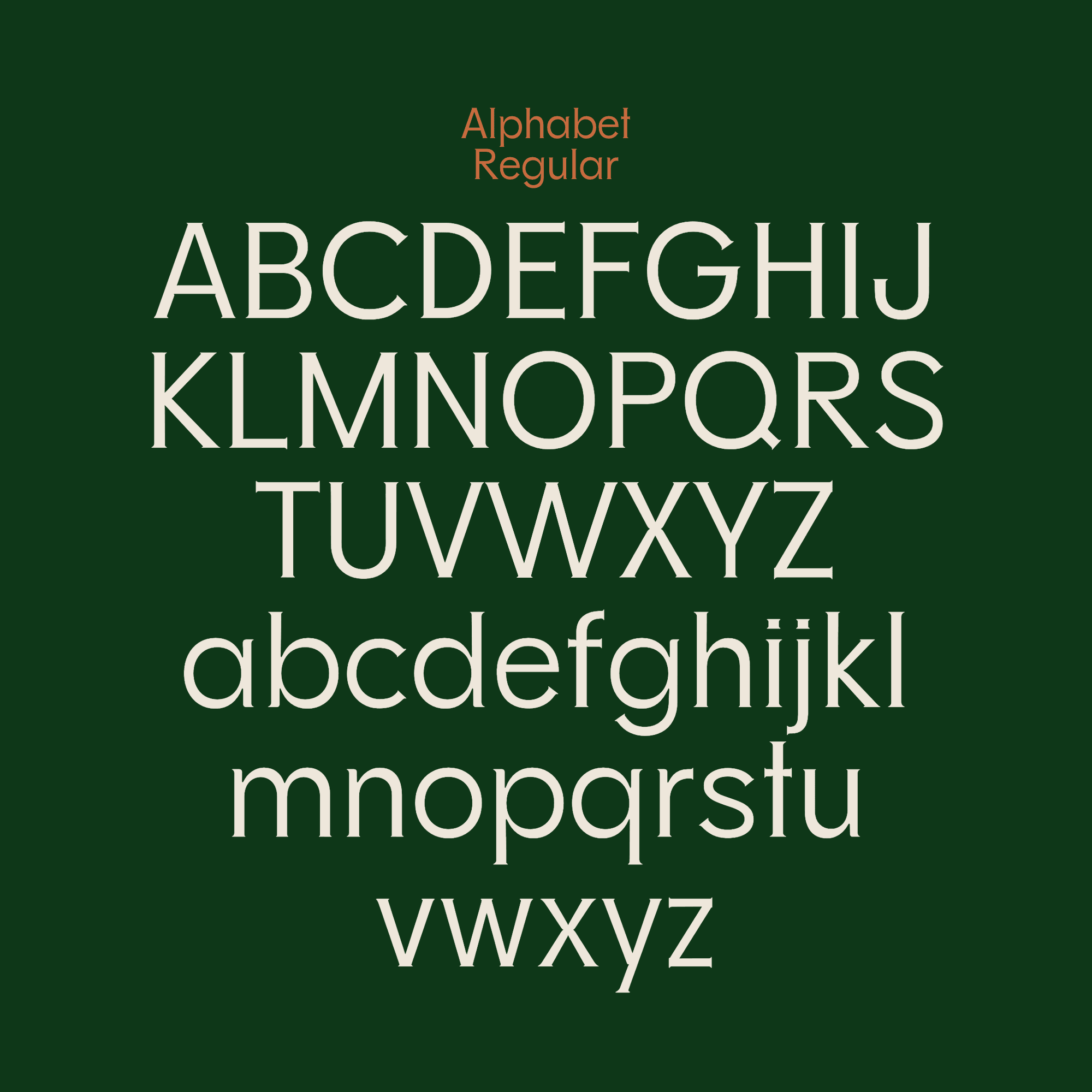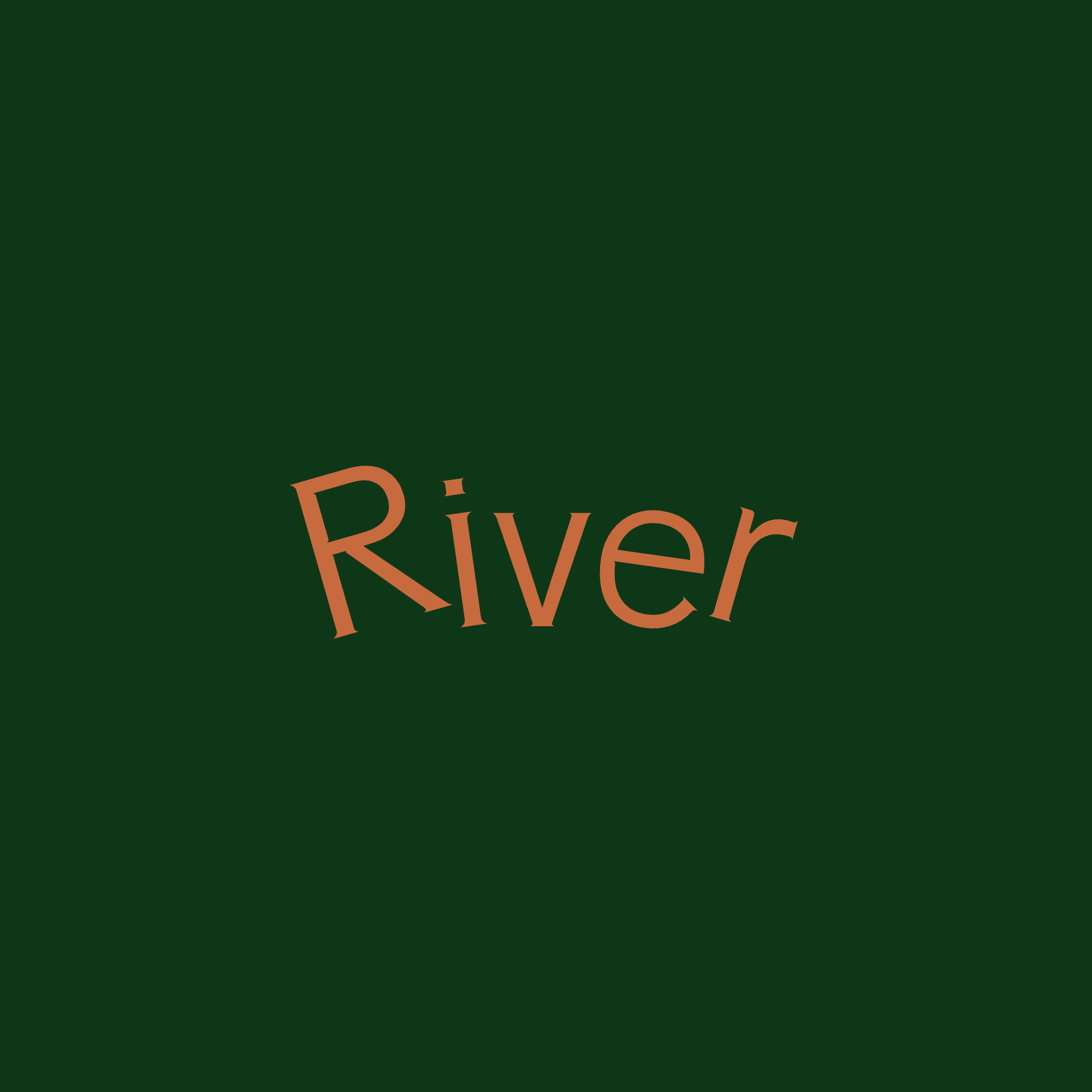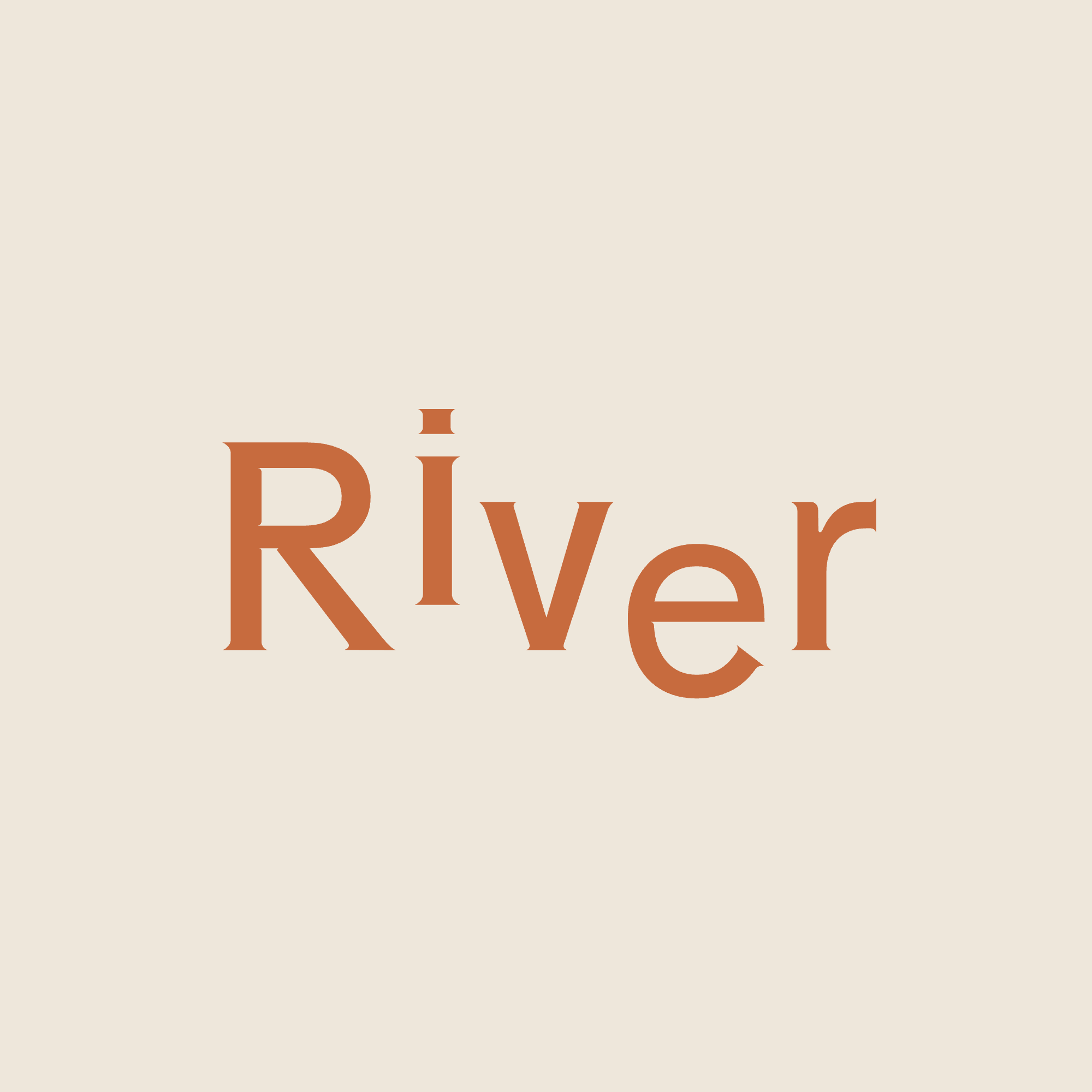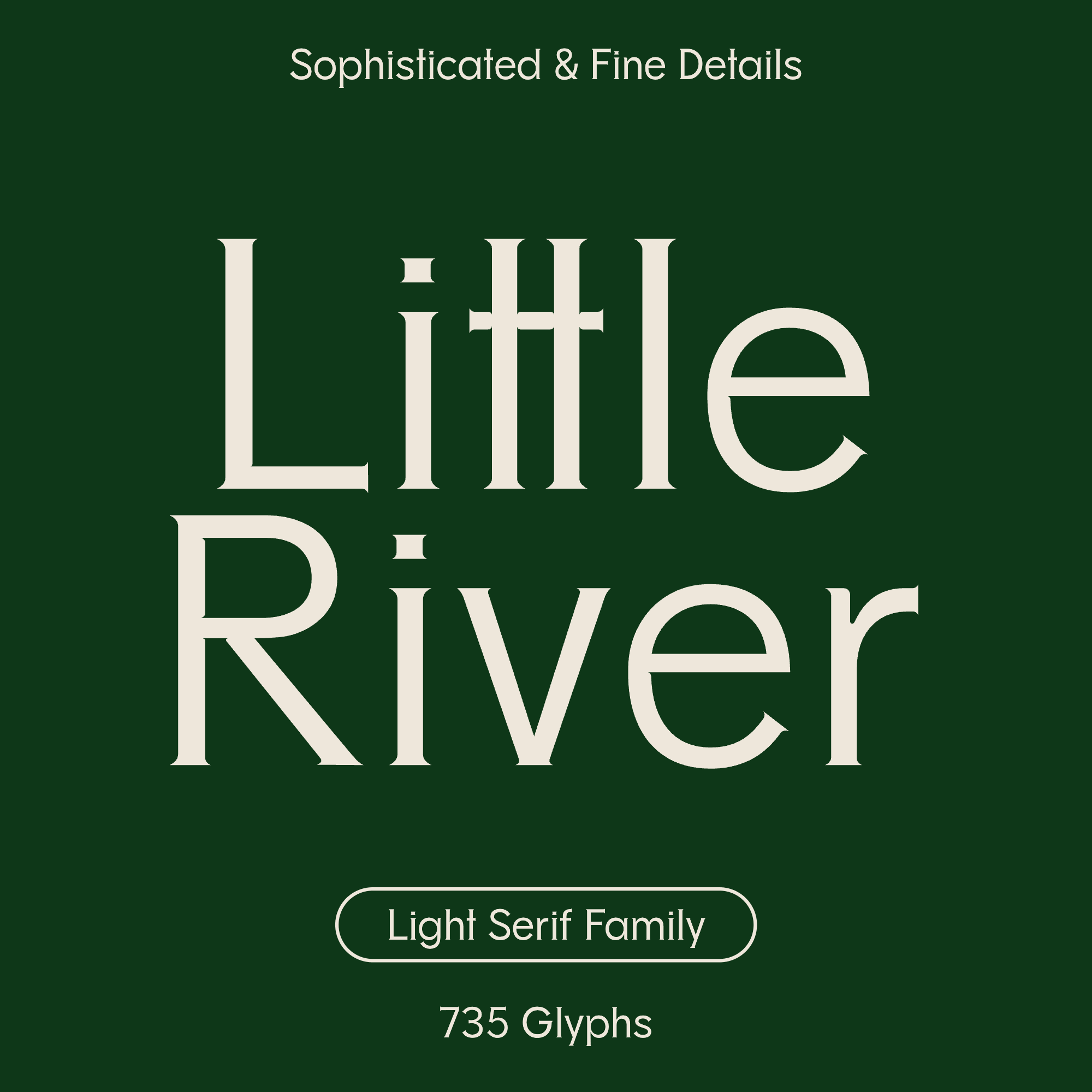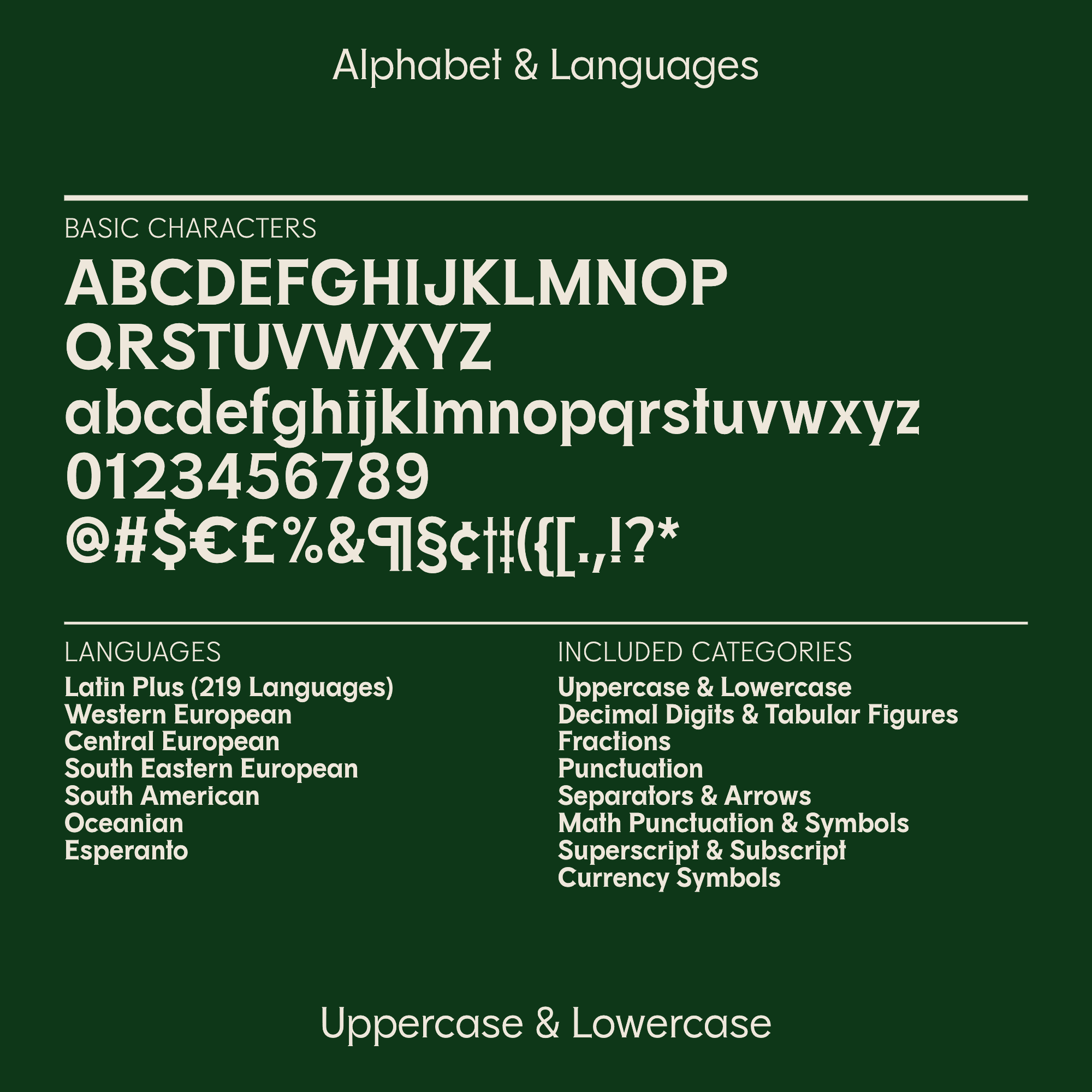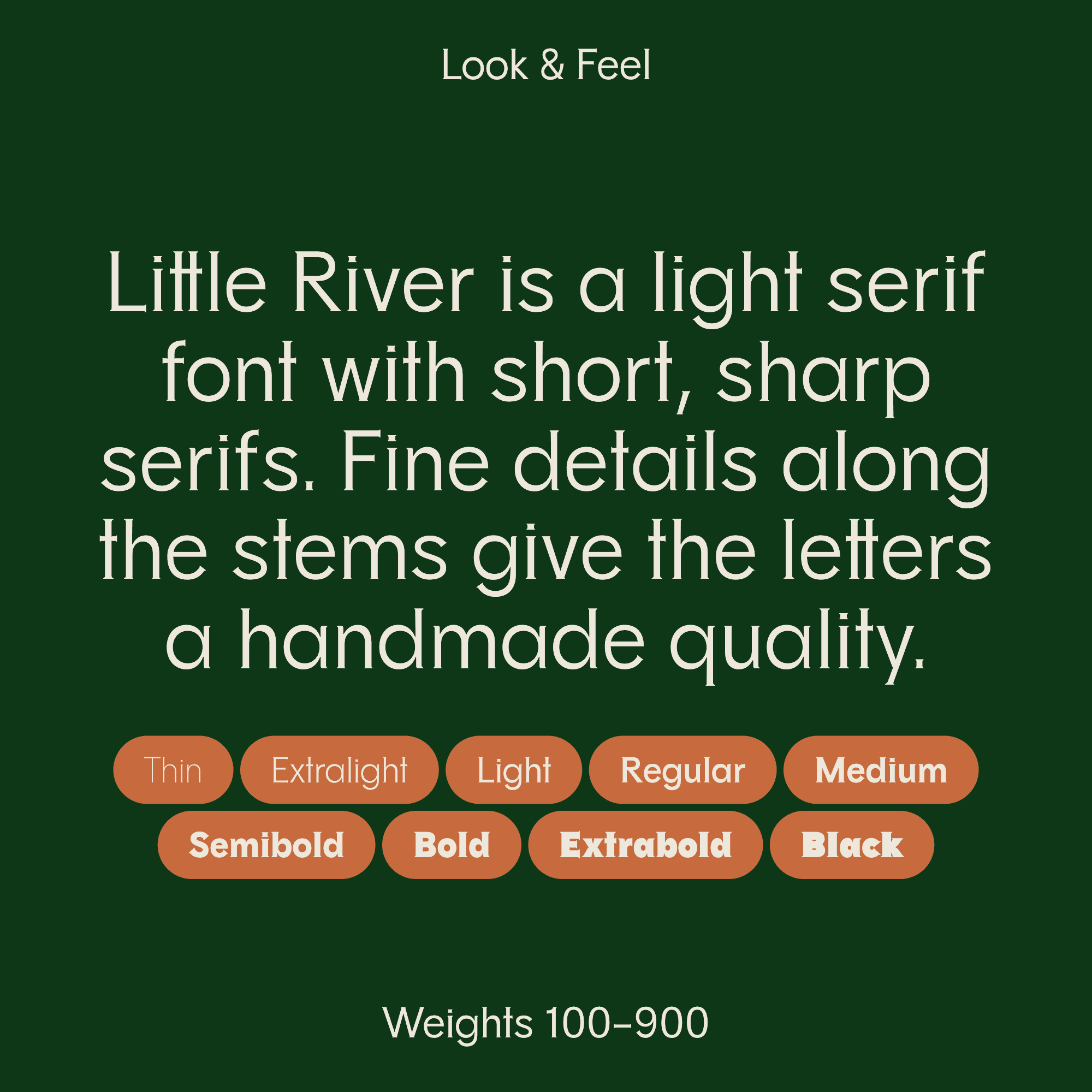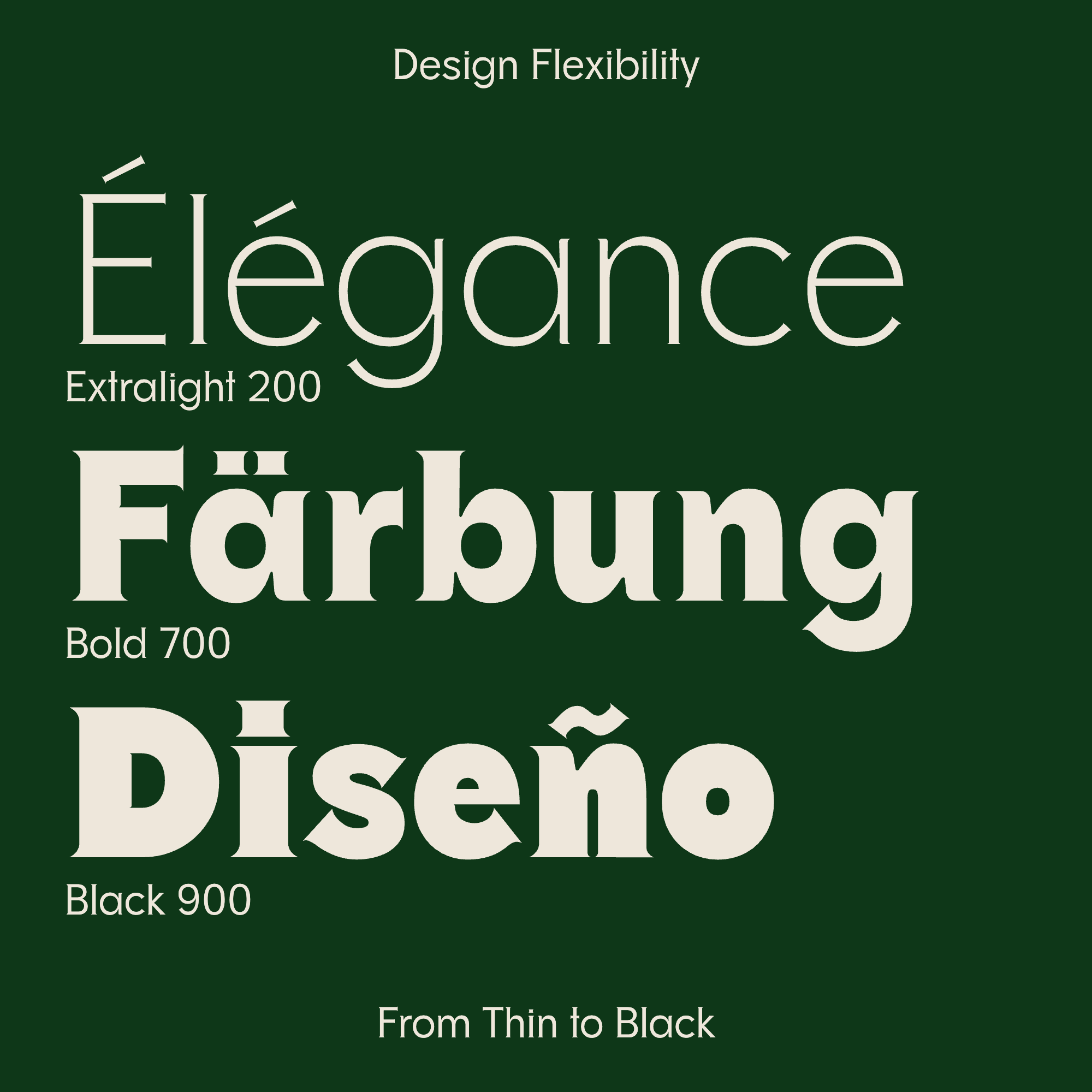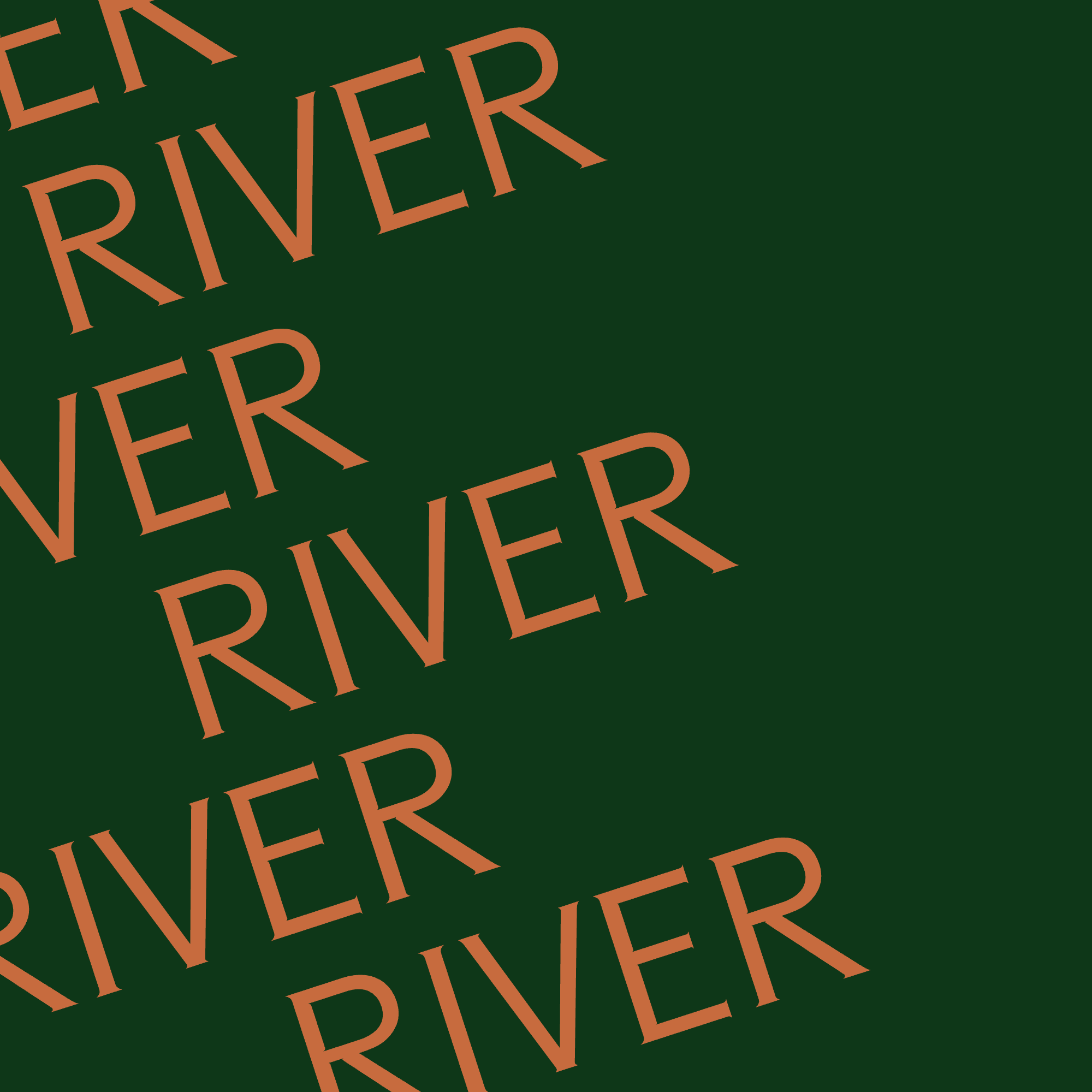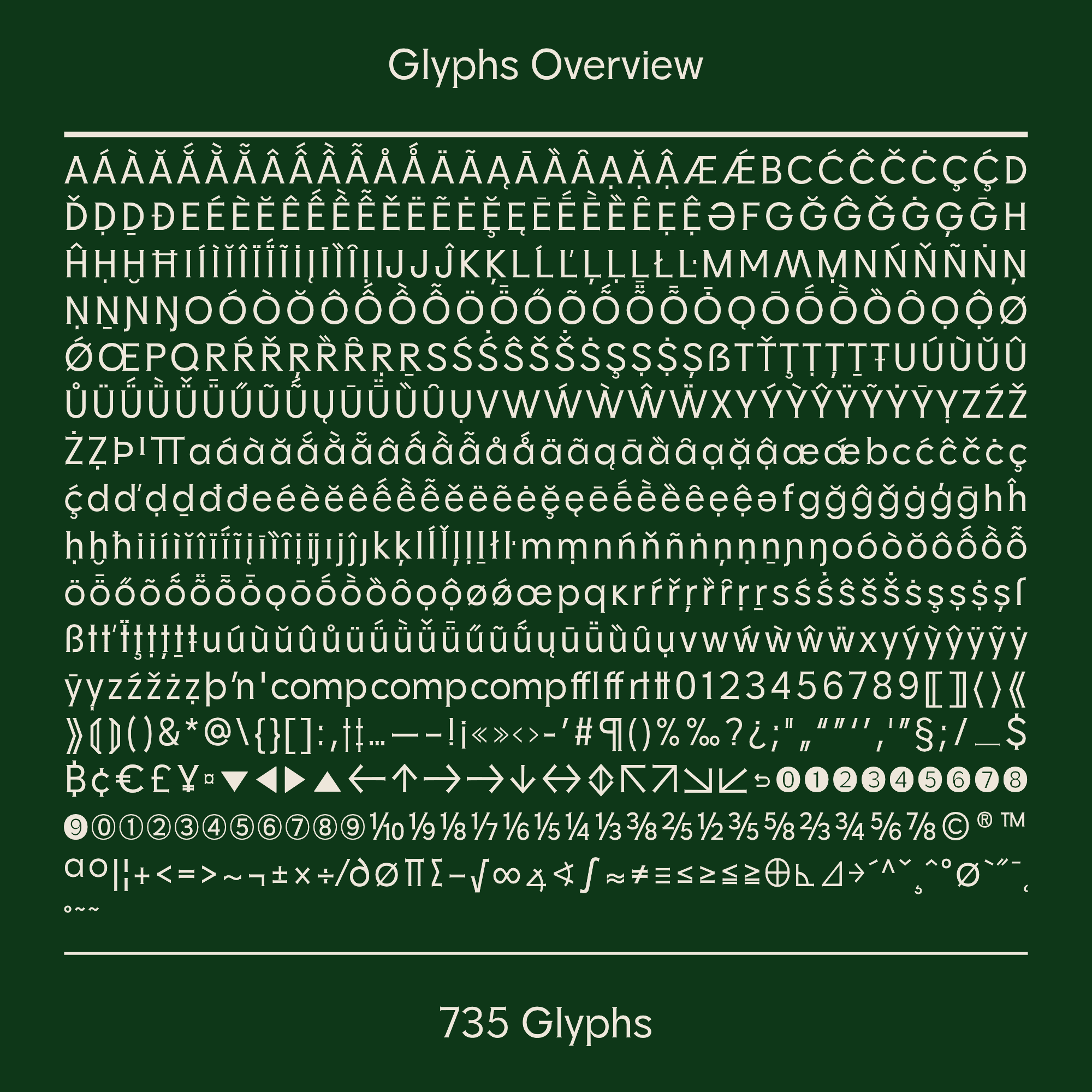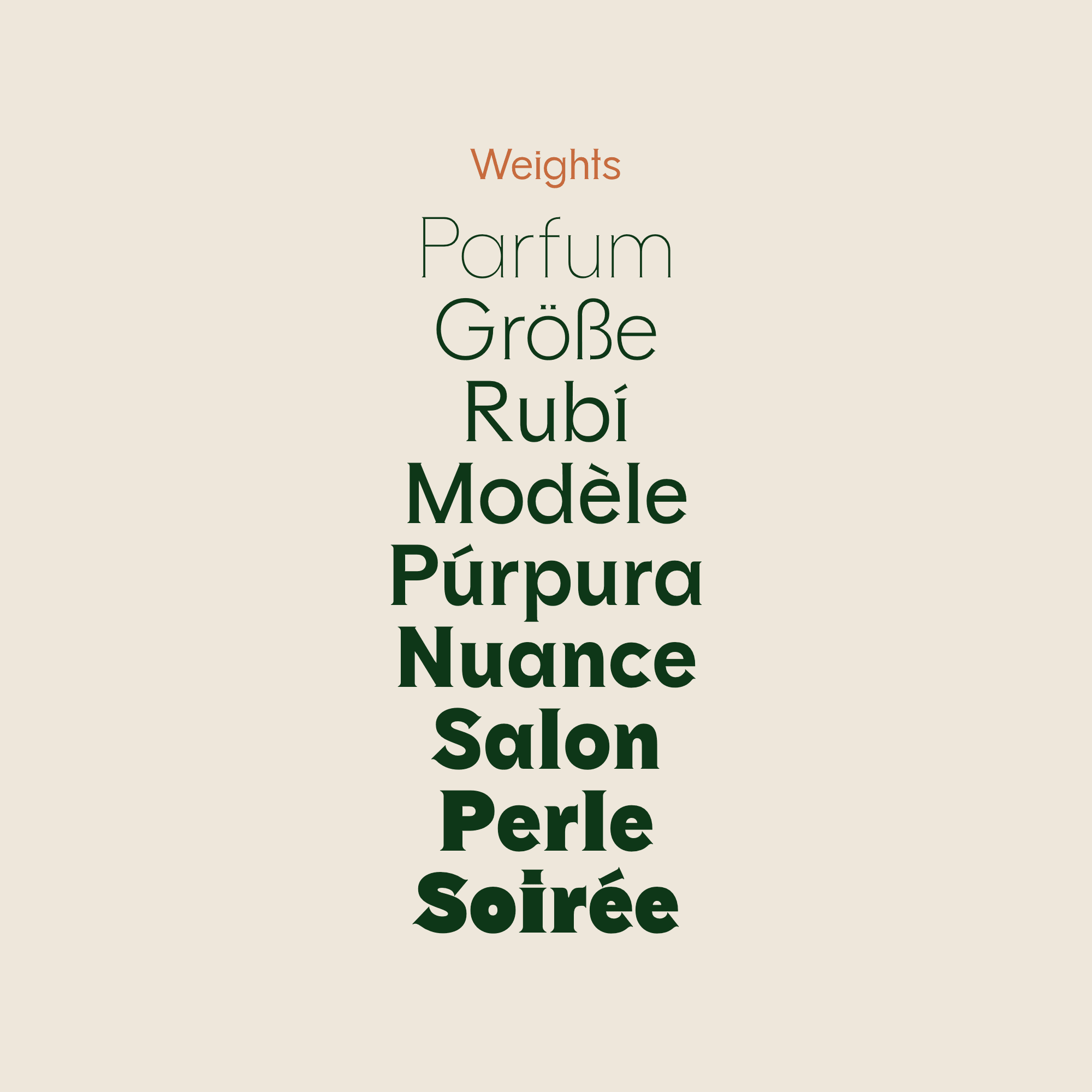
Little River—Sophisticated Light Serif Font, Fine Details
Little River is a light serif font with short, sharp serifs. Fine details along the stems give the letters a handmade quality. This font is great for editorial, fashion, beauty, and wellness branding.
Little River in detail
Family
Variable font, weight axis wght 100-950, with 9 named weights: Thin, ExtraLight, Light, Regular, Medium, SemiBold, Bold, ExtraBold, Black. 743 glyphs, 638 characters, 2 stylistic sets.
Languages
Latin, Western European accents, Central European, Vietnamese.
Figures
Proportional, tabular, slashed zero.
OpenType features
Case-sensitive punctuation, discretionary ligatures, fractions, standard ligatures, ordinals, proportional figures, tabular figures, slashed zero.
Ligatures
On by default: ff, ffl, tt, TT. Discretionary, switched on by the designer: rt.